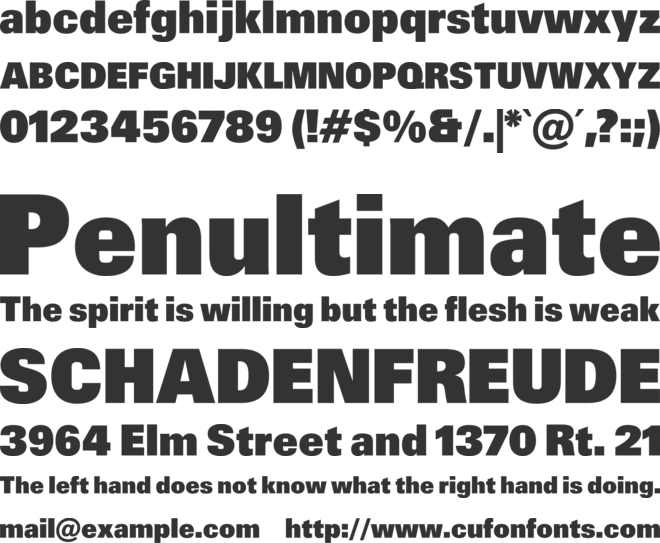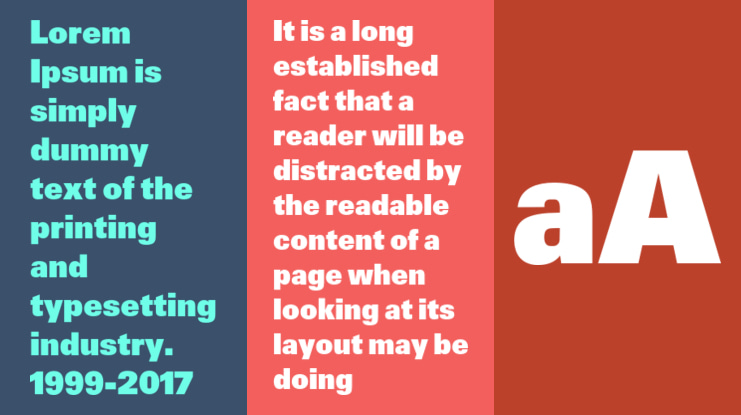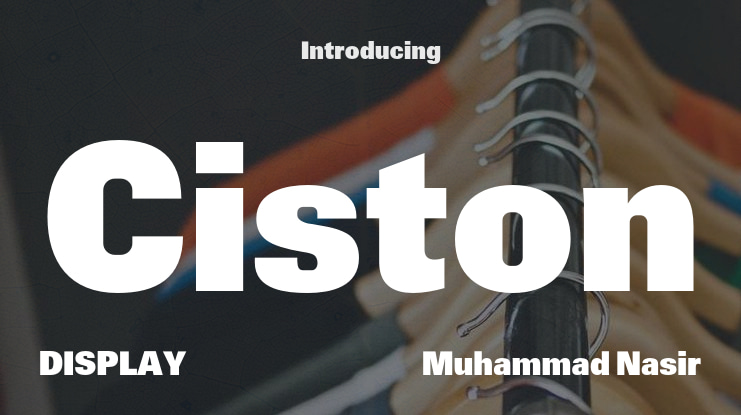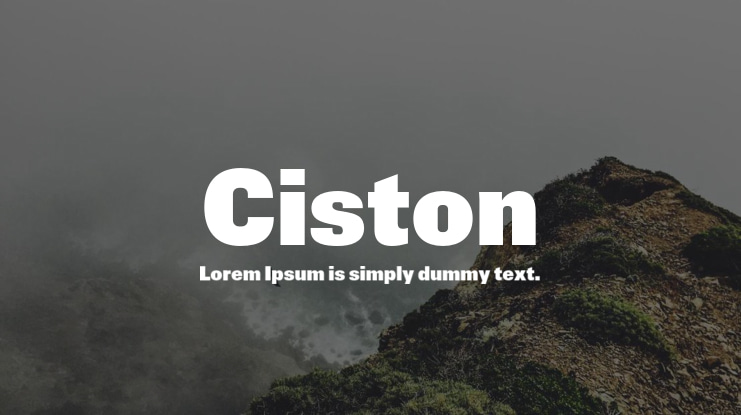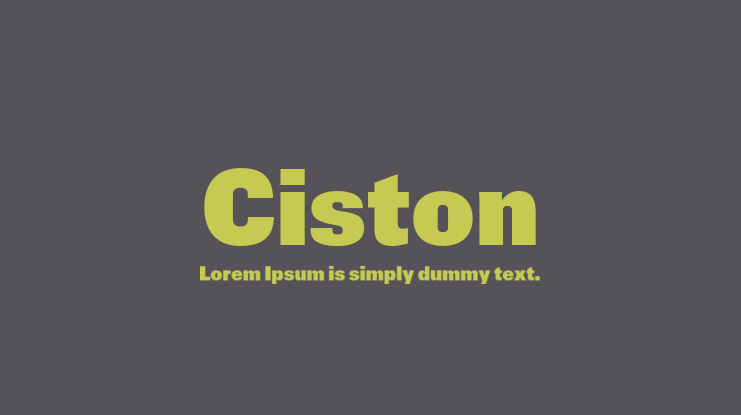
Ciston Font
Envision words that demand attention and make a bold statement. The distinct Ciston sans-serif typeface exudes a rebellious charm, captivating with its crisp edges and contemporary vibe. Widely favored by brands and creatives seeking to stand out, the Ciston sans-serif font serves as a visual declaration of assurance and precision.